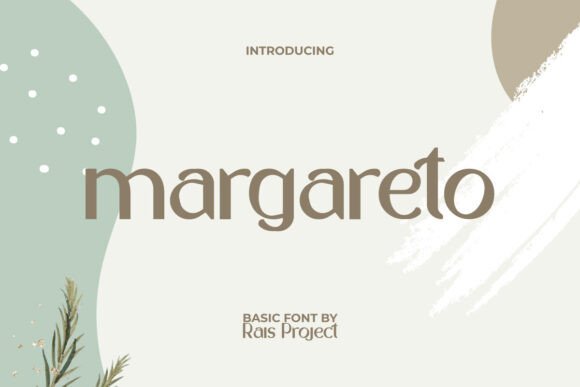
Introducing Margareto Font: A Stylish and Sophisticated Sans Serif Display Font
In the world of typography, fonts play a crucial role in conveying messages, expressing emotions, and creating visual identities. Among the numerous fonts available, Margareto Font stands out as a stylish, beautiful, and sophisticated sans serif display font designed by RaisProject. This font boasts a unique line shape that adds a touch of elegance and freshness to any design project. In this article, we’ll explore the features, benefits, and uses of Margareto Font, and why it’s an excellent choice for designers and businesses looking to elevate their visual branding.
Key Features of Margareto Font
- Unique Line Shape: Margareto Font’s distinctive line shape sets it apart from other sans serif fonts. Its elegant and smooth curves make it perfect for creating visually appealing designs.
- Sophisticated and Stylish: This font exudes sophistication and style, making it ideal for high-end branding, advertising, and marketing materials.
- Versatile: Margareto Font is highly versatile and can be used in various design projects, from business cards to billboards.
- Easy to Read: Despite its stylized design, Margareto Font remains easy to read, ensuring that your message is conveyed clearly and effectively.
Design Applications of Margareto Font
Margareto Font’s versatility makes it suitable for a wide range of design applications, including:
- Advertisements: Create eye-catching ads that grab attention with Margareto Font’s stylish and sophisticated design.
- Brand Image: Establish a strong brand identity with this font, perfect for logos, taglines, and marketing materials.
- Business Cards: Make a lasting impression with Margareto Font on your business cards, setting you apart from the competition.
- Covers and Flyers: Add a touch of elegance to your book covers, flyers, and brochures with this beautiful font.
- Custom Designs: Margareto Font is perfect for custom designs, such as social media graphics, email newsletters, and website headers.
- Invitations and Labels: Create stunning invitations, labels, and menus that showcase your brand’s personality.
- Posters and Signage: Use Margareto Font to create bold and eye-catching posters, signs, and billboards that capture attention.
- Product Packaging: Elevate your product packaging with this sophisticated font, perfect for labels, tags, and packaging materials.
- Quote and Website Pages: Add a touch of style to your quote and website pages, making them more engaging and memorable.
Benefits of Using Margareto Font
By incorporating Margareto Font into your design projects, you’ll enjoy several benefits, including:
- Enhanced Visual Appeal: Margareto Font’s unique design adds a touch of sophistication and elegance to your designs, making them more visually appealing.
- Improved Brand Identity: This font helps establish a strong brand identity, setting you apart from competitors and making your brand more memorable.
- Increased Readability: Despite its stylized design, Margareto Font remains easy to read, ensuring that your message is conveyed clearly and effectively.
- Versatility: Margareto Font’s versatility makes it suitable for various design applications, saving you time and effort in finding the right font for each project.
Tips for Using Margareto Font
To get the most out of Margareto Font, follow these tips:
- Pair with Complementary Fonts: Combine Margareto Font with complementary fonts to create visual interest and hierarchy in your designs.
- Experiment with Colors: Try different color schemes and combinations to find the perfect match for your brand and design.
- Use for Headings and Titles: Margareto Font is perfect for headings and titles, making it ideal for creating visual hierarchy and emphasis.
- Keep it Simple: Don’t over-accessorize your design – keep it simple and let Margareto Font’s elegance shine through.
Margareto Font is a stylish, beautiful, and sophisticated sans serif display font that can elevate your design projects to the next level. Its unique line shape, versatility, and ease of use make it an excellent choice for designers and businesses looking to create visually stunning and effective designs. With its wide range of applications and benefits, Margareto Font is sure to become a staple in your font library.